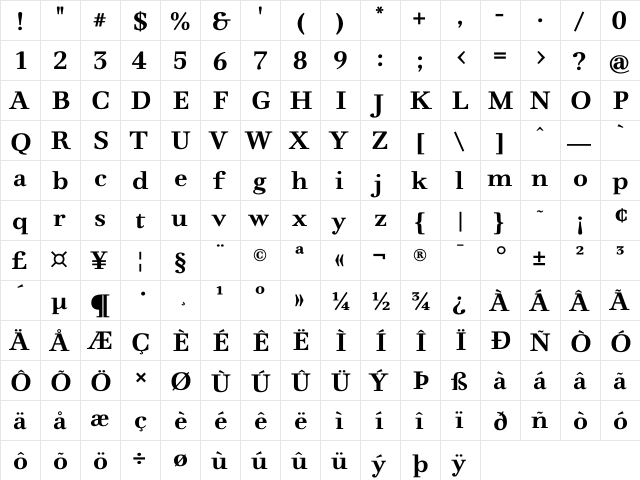
Dedica DaMa Bold
Design Context for Dedica DaMa Typeface
Dedica DaMa is a composed and adaptable typeface that performs quietly and consistently across a wide range of design contexts. The heavy weight commands attention and anchors typographic hierarchies.
Pro Tip: Pair Dedica DaMa with a font of contrasting weight or personality to build a more expressive typographic hierarchy.